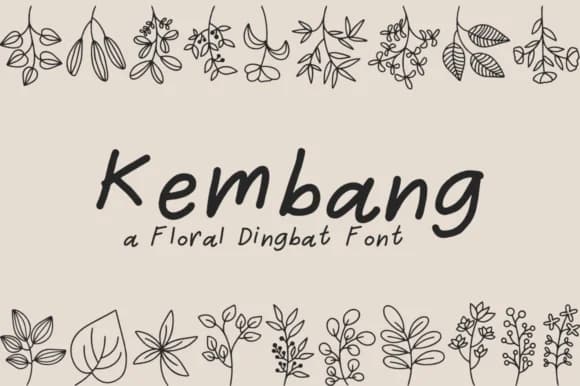
Kembang, a dingbat collection by SiapGraph, centers on botanical and floral elements that bring organic character to any design. The letterforms themselves aren't traditional characters but rather a set of carefully drawn leaves, flowers, and botanical flourishes that feel both detailed and approachable. This is the kind of font you reach for when you need visual texture without complexity.
The collection works particularly well for wedding invitation suites where you want botanical accents alongside traditional text, eco-conscious product labels for natural or herbal brands, and garden center or plant nursery branding. You'll also find it useful for DIY plant stakes and garden markers, creating a cohesive look across a small business's touchpoints. The individual elements can function as ornamental borders, dividers, or standalone design accents depending on how you arrange them.
What makes Kembang stand out for creatives is how the botanical theme doesn't feel trendy or forced. The glyphs maintain enough variation and detail that you can build layered, sophisticated compositions rather than relying on repetition. It's ideal for designers and small business owners working with plant-based brands, craft projects, and any project that benefits from natural, organic visual language. Find Kembang on Creative Fabrica to add botanical depth to your next project.
Kembang Font